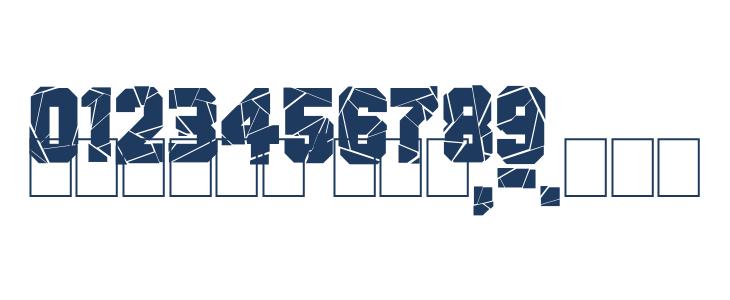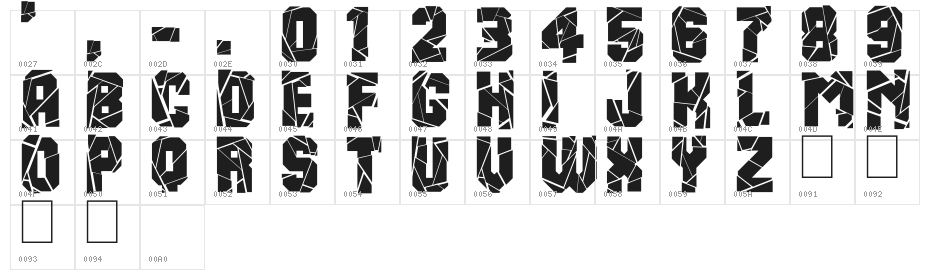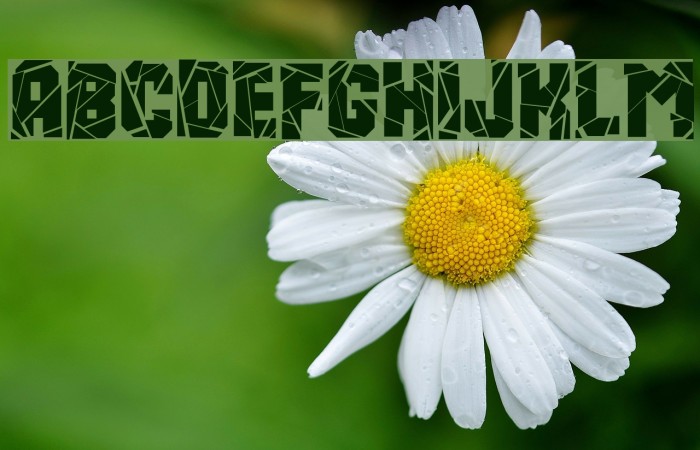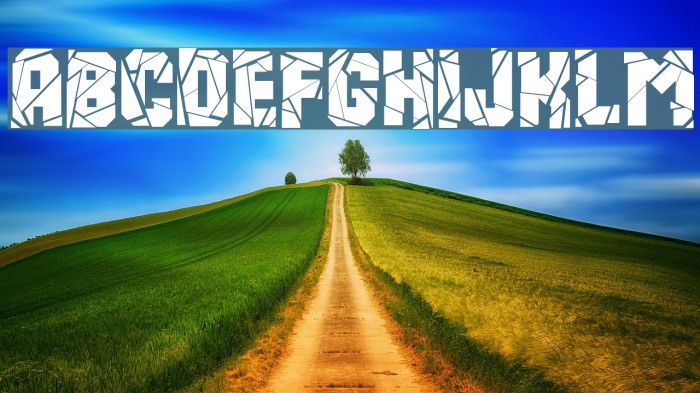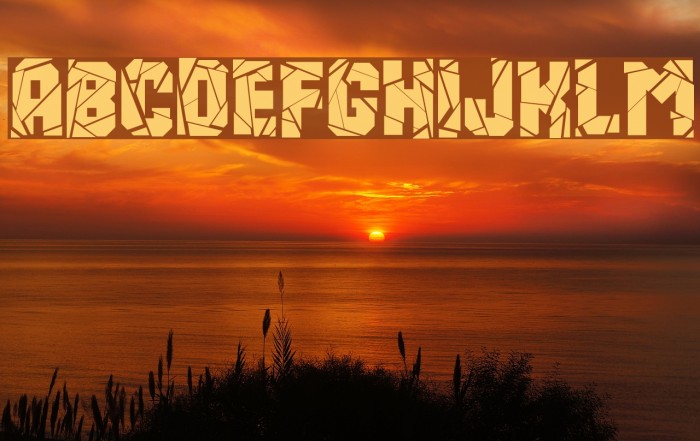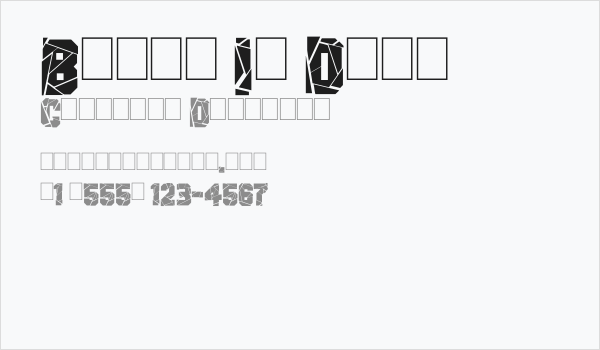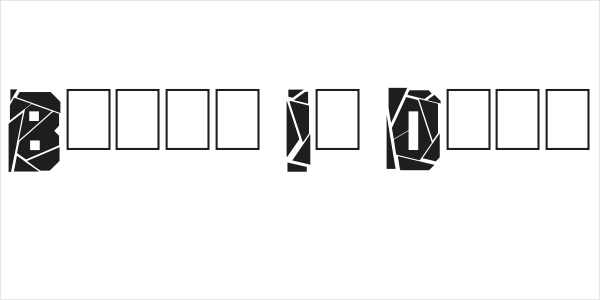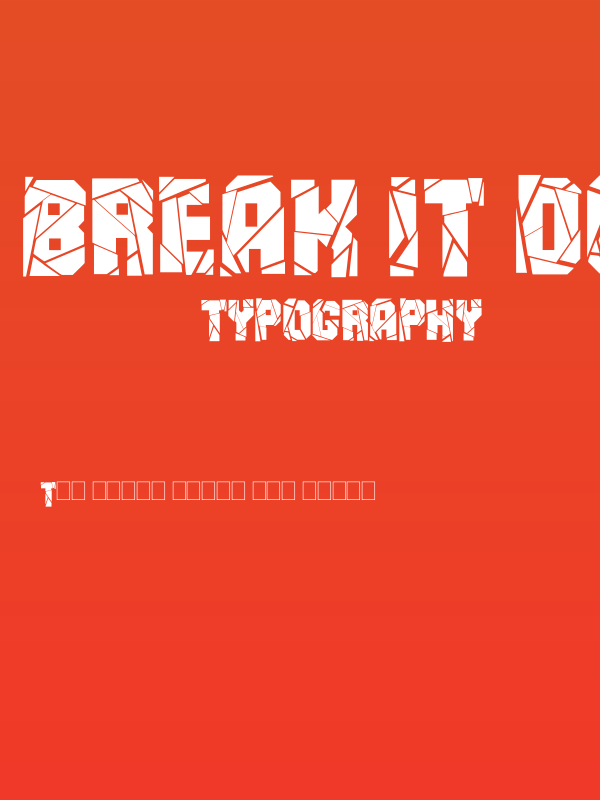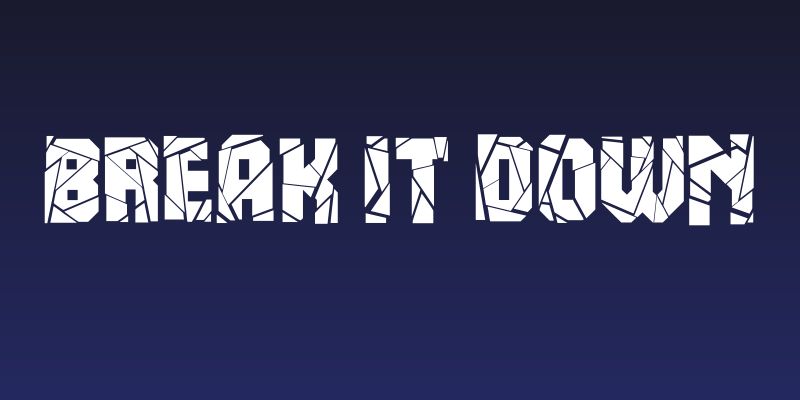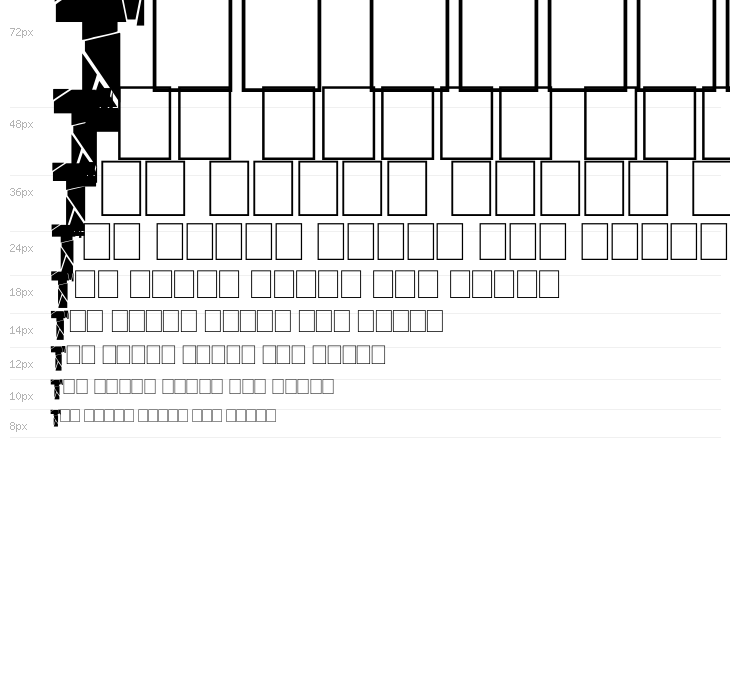
Break It Down Font
Break It Down Description
This font features a bold, fragmented design that resembles shattered glass or broken pieces. Each character is composed of angular, irregular shapes that create a dynamic and edgy appearance. The style is highly decorative, making it stand out with its unique, chaotic structure. The font maintains consistent thickness across all characters, contributing to a uniform yet striking visual impact. Its geometric and abstract nature makes it ideal for projects that require a modern and unconventional look.
| Proposed Projects | Ideal for album covers, posters, branding for edgy or alternative products, and any design needing a bold statement. |